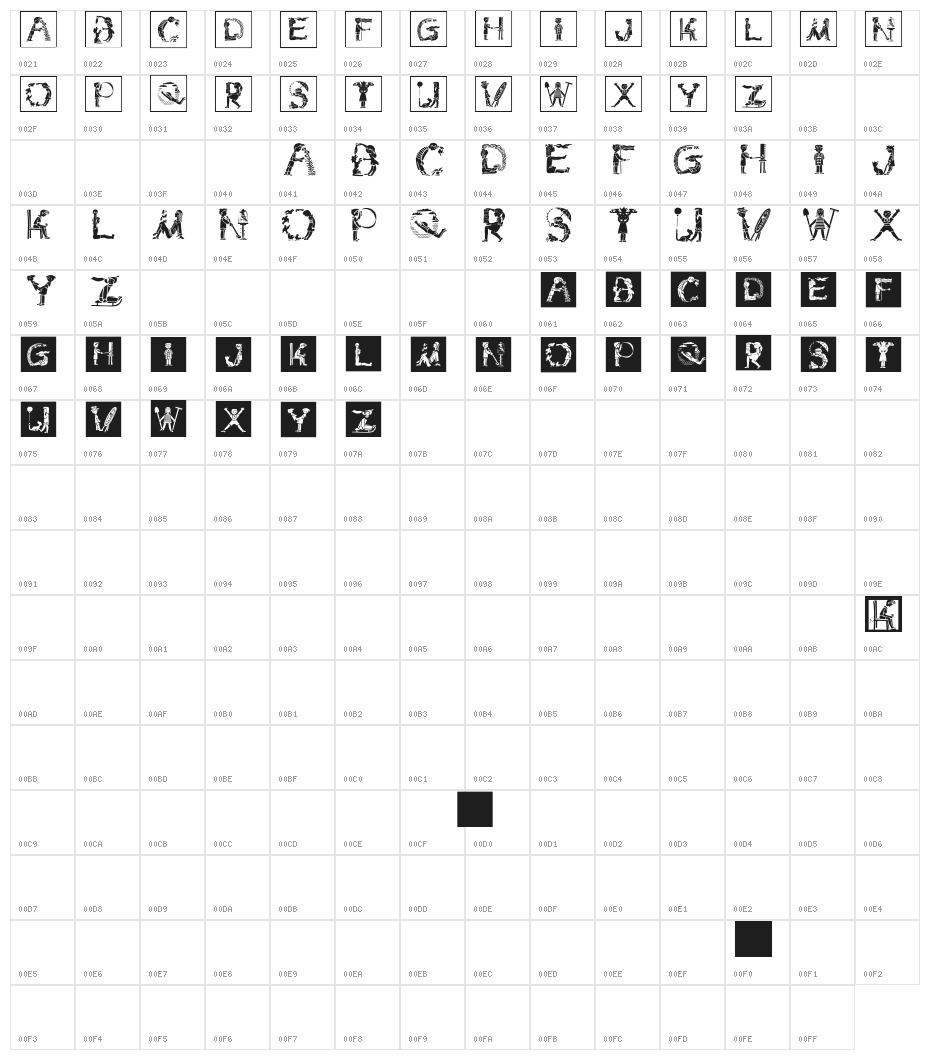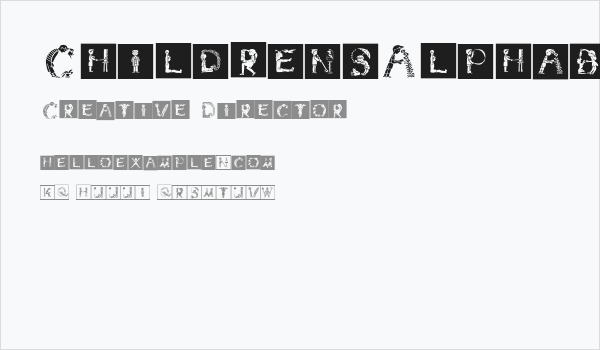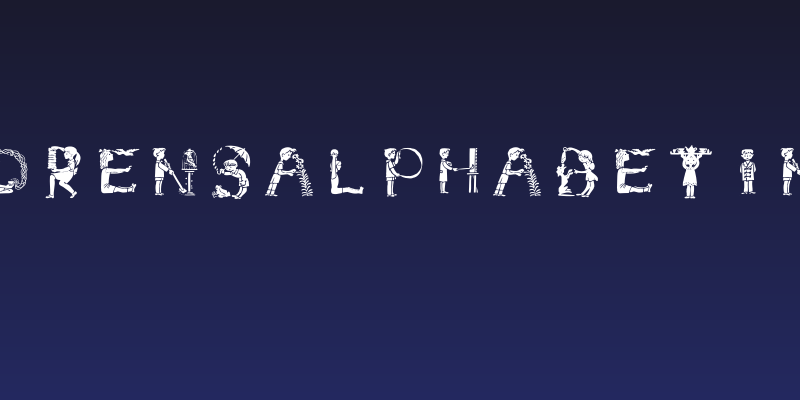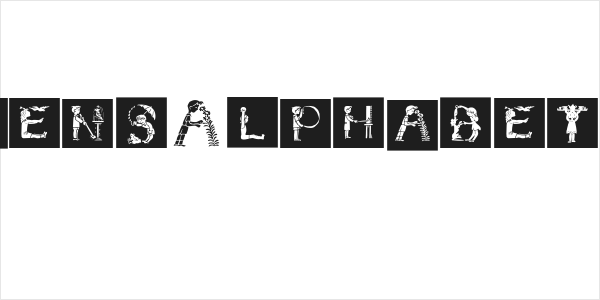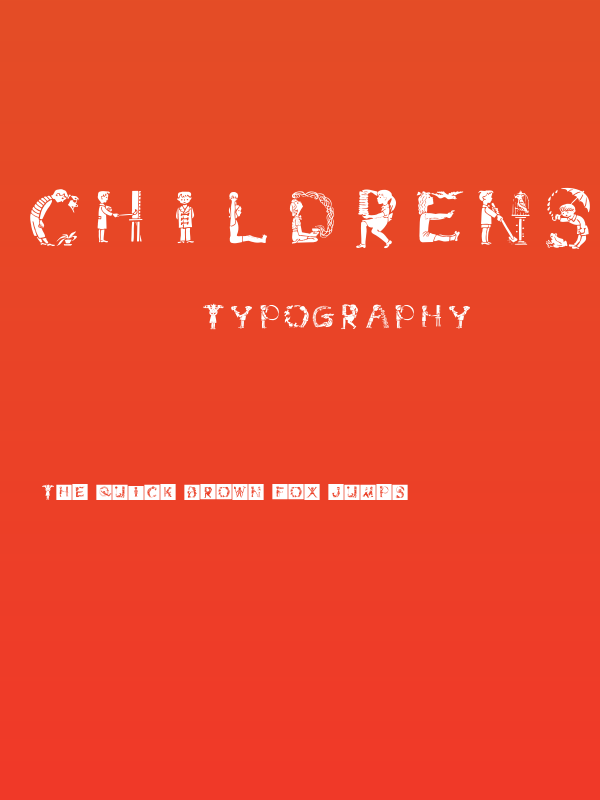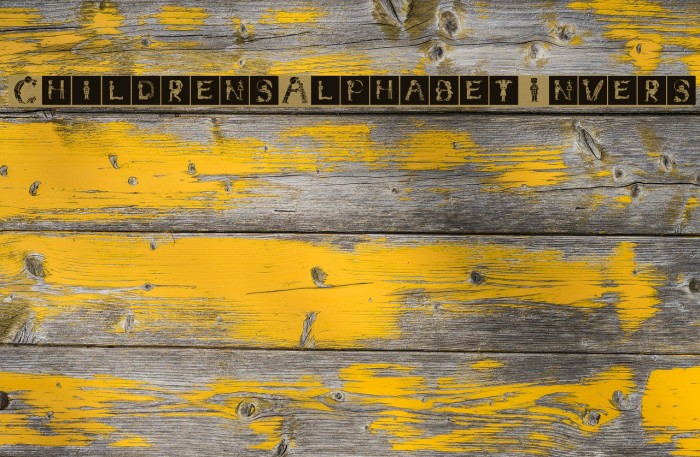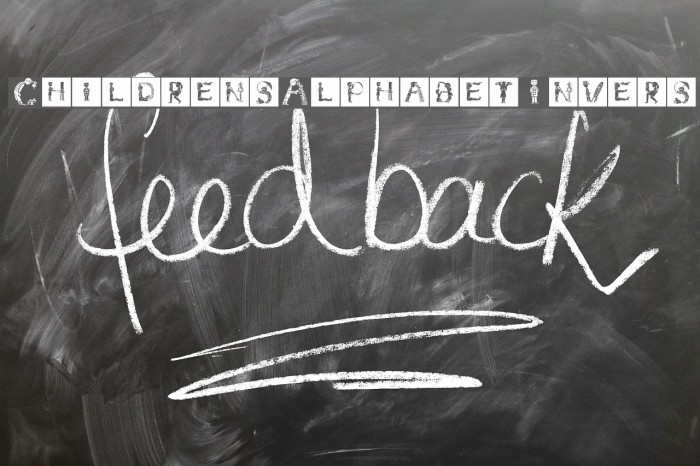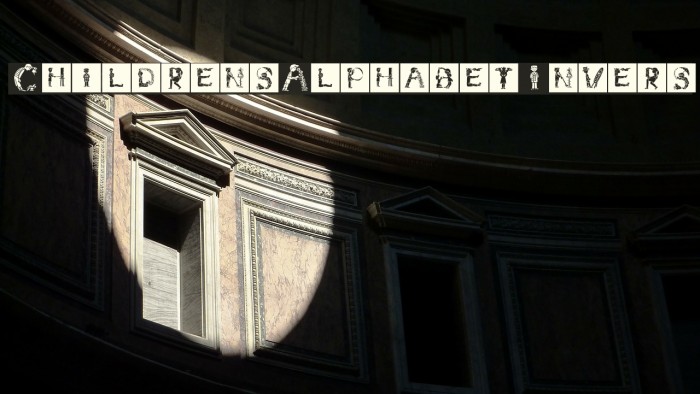
ChildrensAlphabetInvers Font
ChildrensAlphabetInvers Description
This playful and imaginative font features each letter crafted from whimsical illustrations of children engaged in various activities. The characters are designed with a sense of movement and joy, capturing the essence of childhood playfulness. Each letter is unique, with details that make the font visually engaging and perfect for capturing attention. The use of children in different poses and actions to form the letters adds a layer of creativity and fun, making it ideal for projects aimed at younger audiences. The font's style is both decorative and illustrative, with a focus on storytelling through its design.
| Overall Style | Playful, Illustrative, Whimsical |
| Use Case | Headlines, Children's materials, Educational content |
| Proposed Projects | Ideal for children's books, educational materials, playful branding, and any project targeting a young audience. |